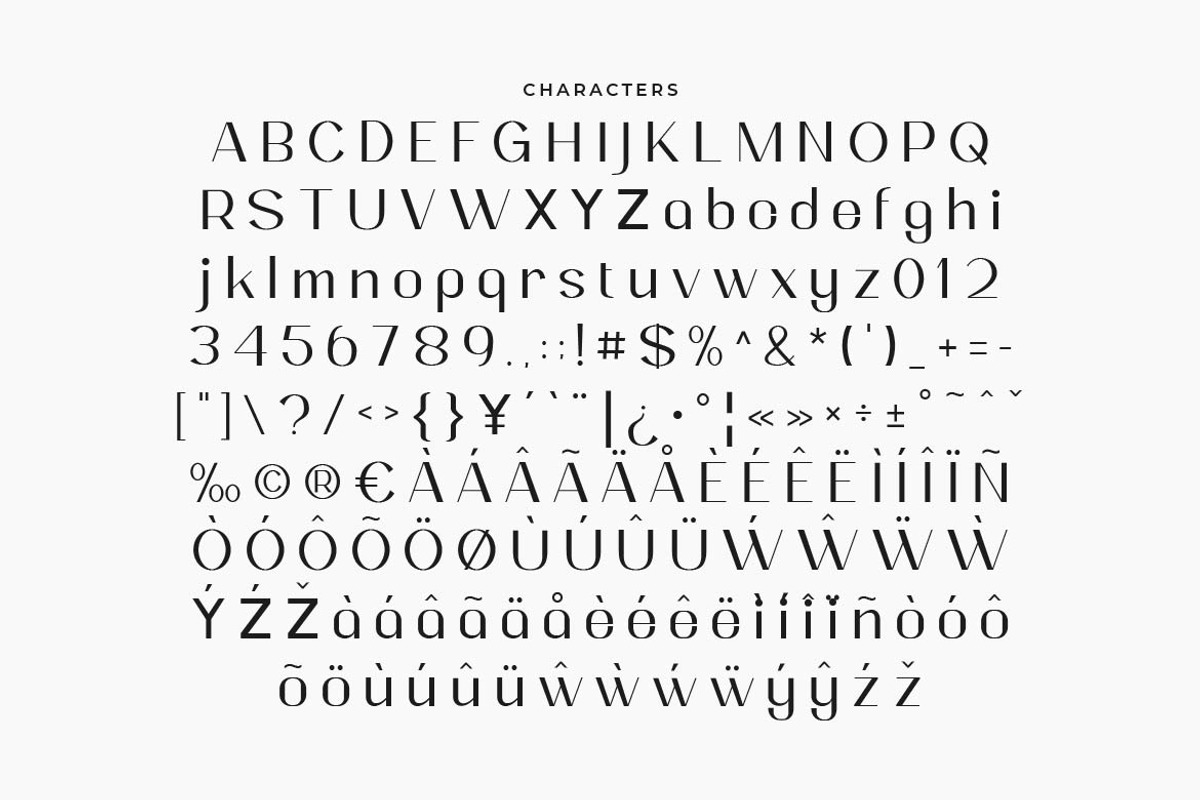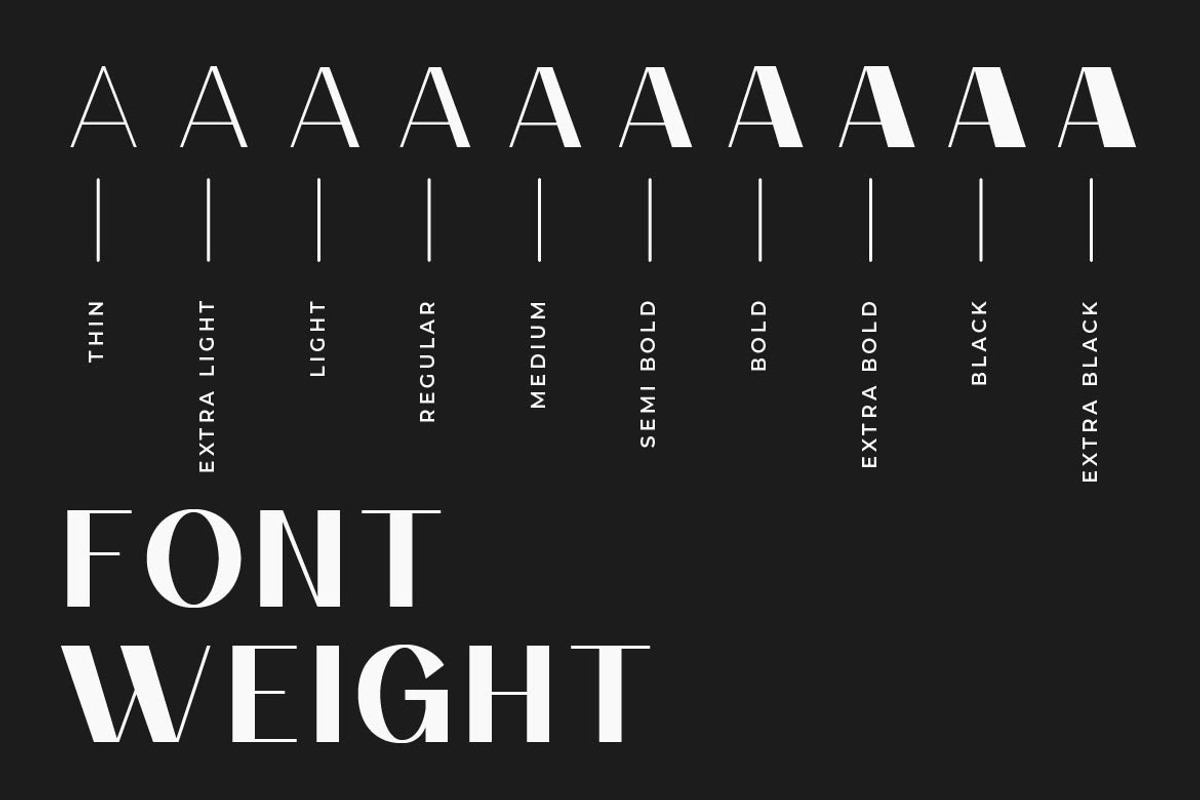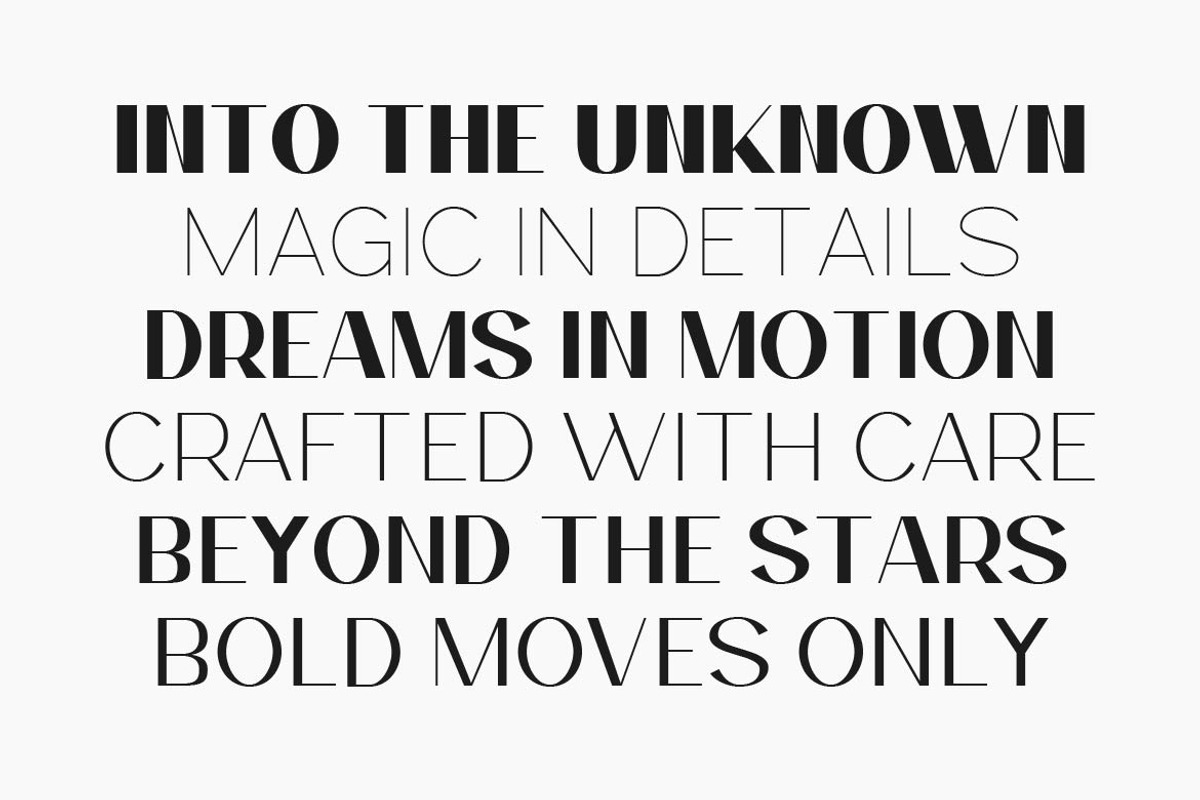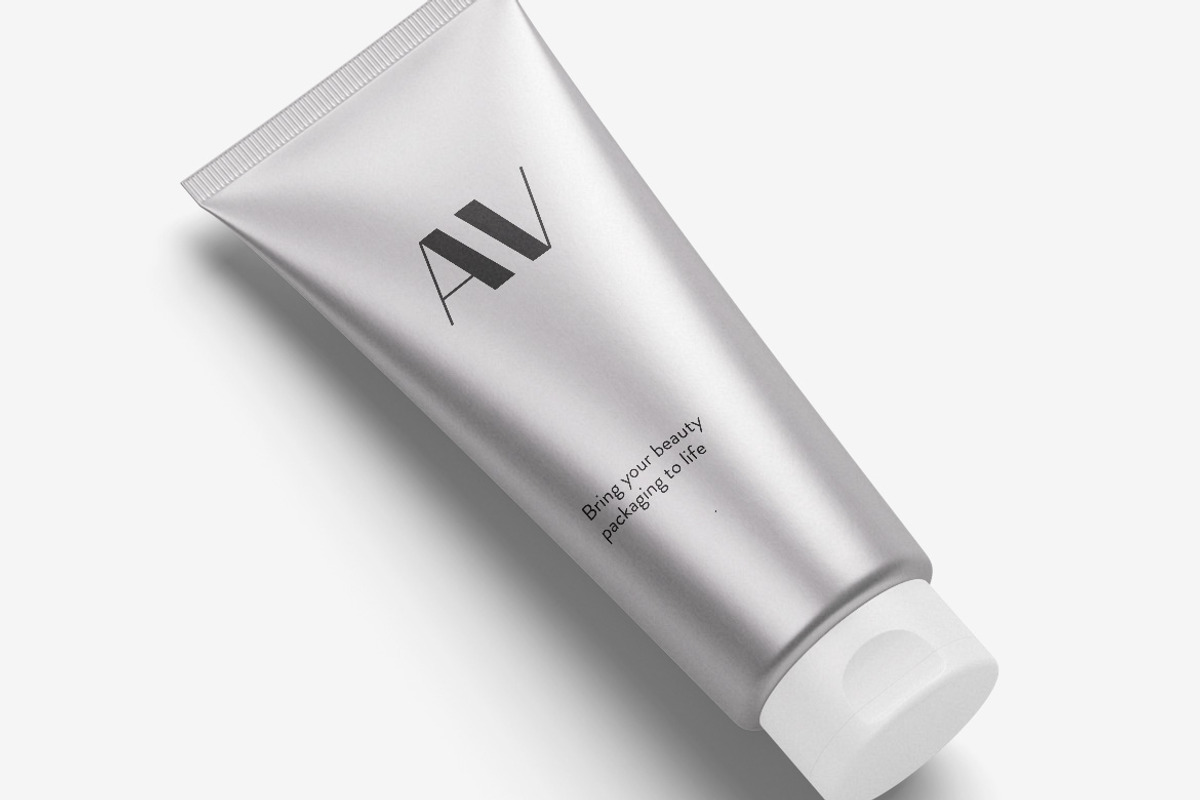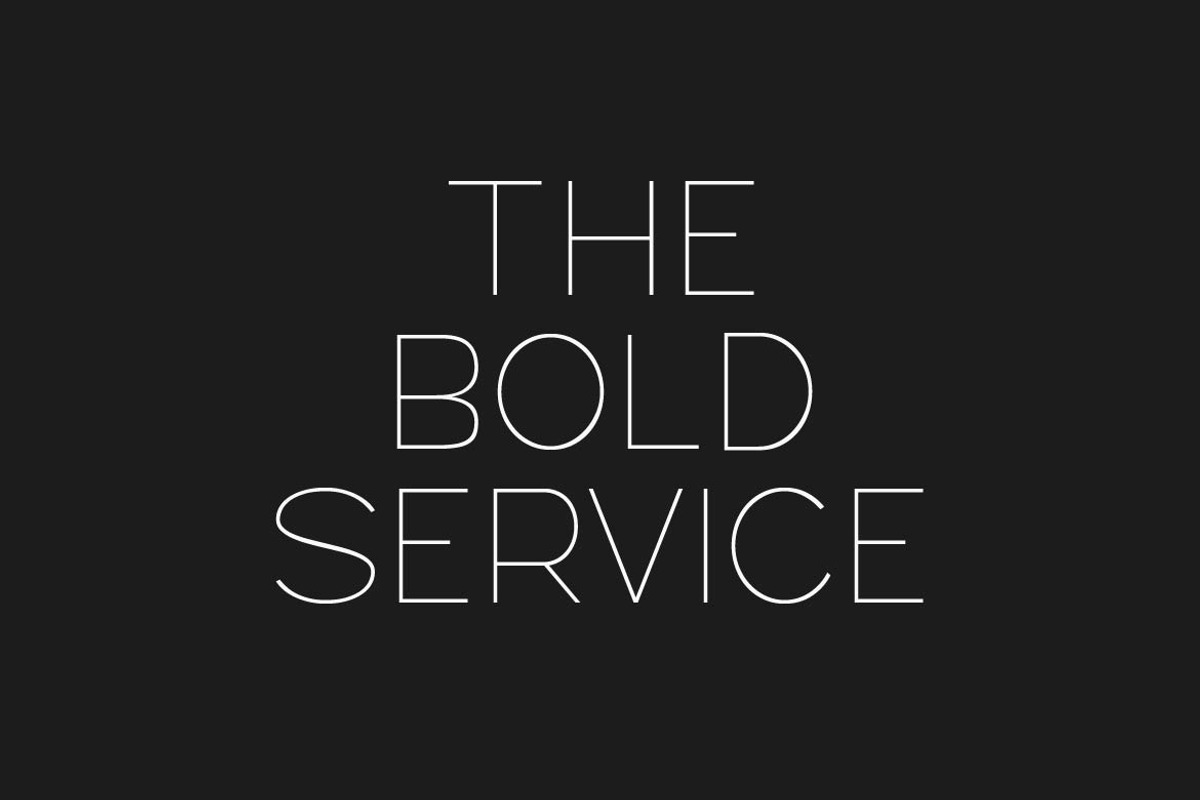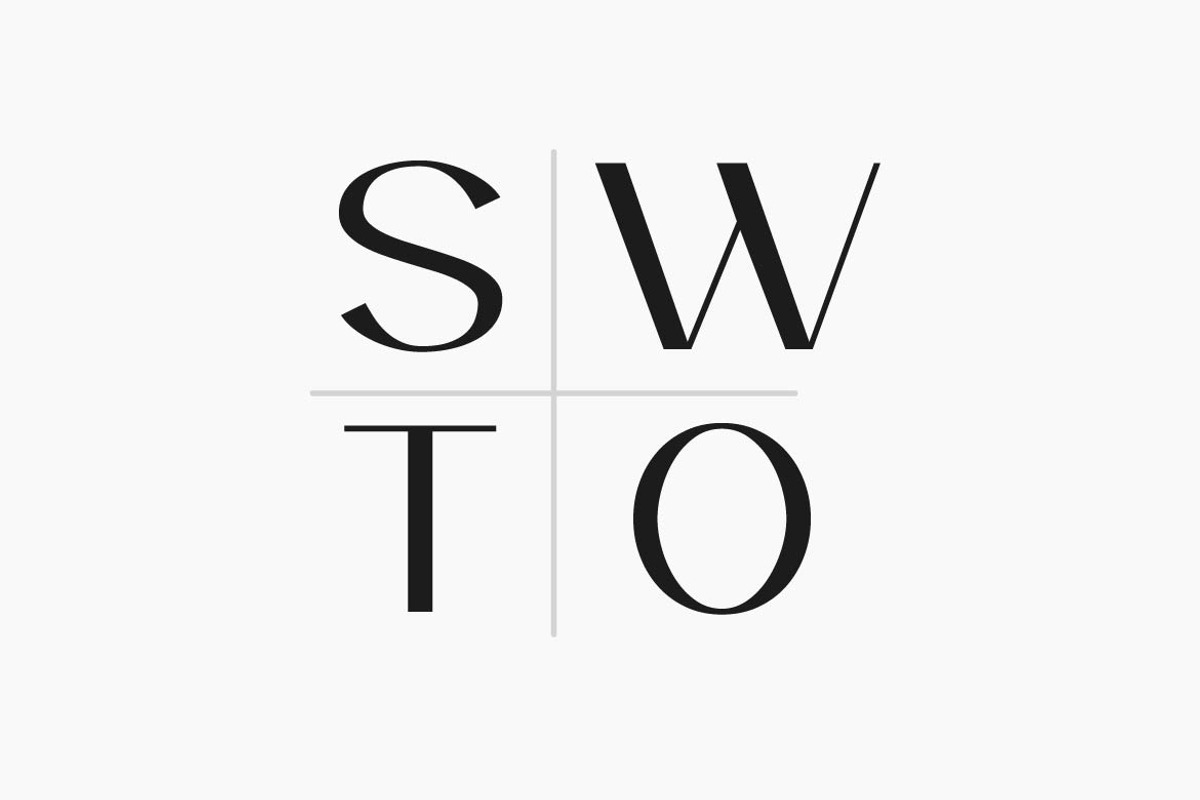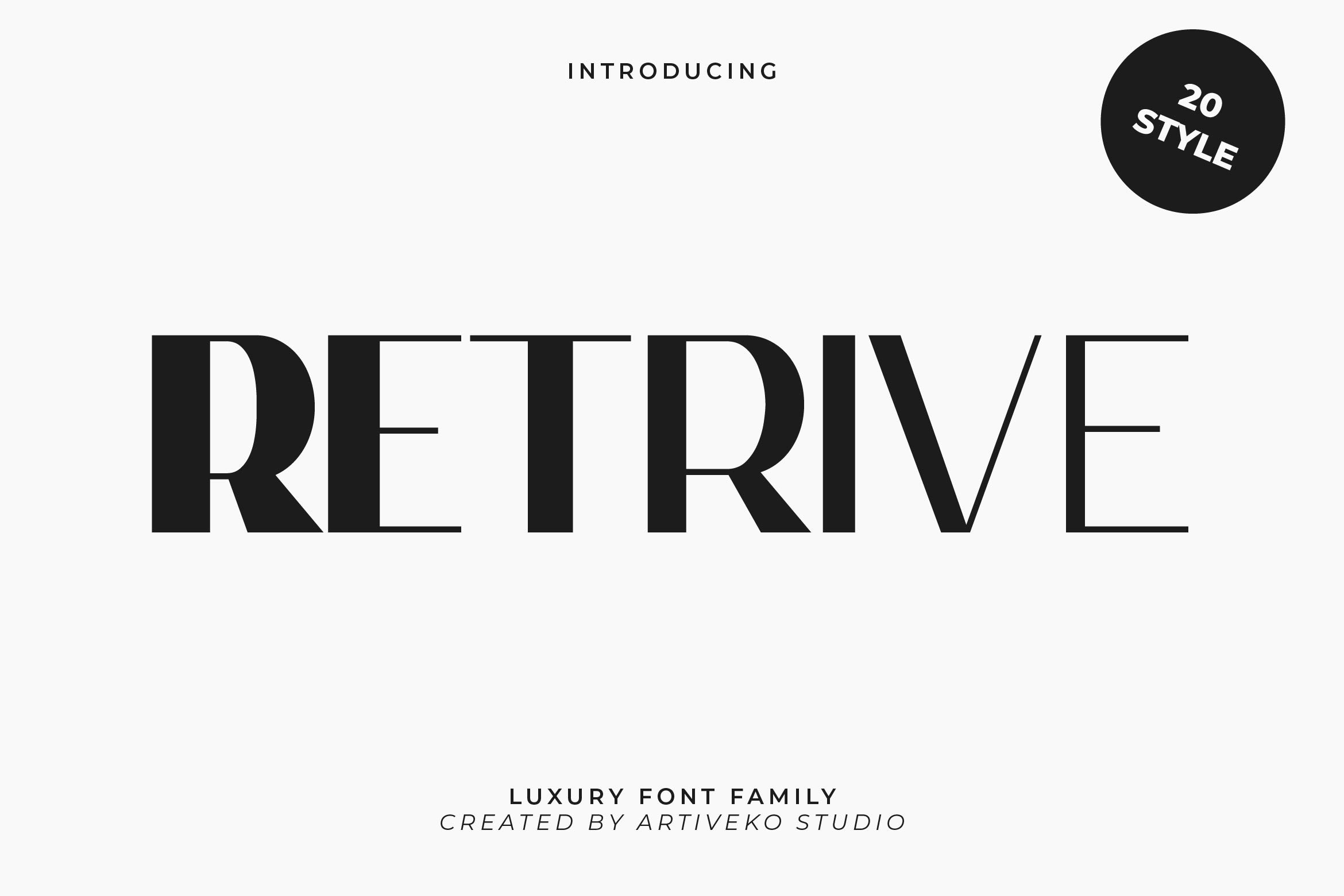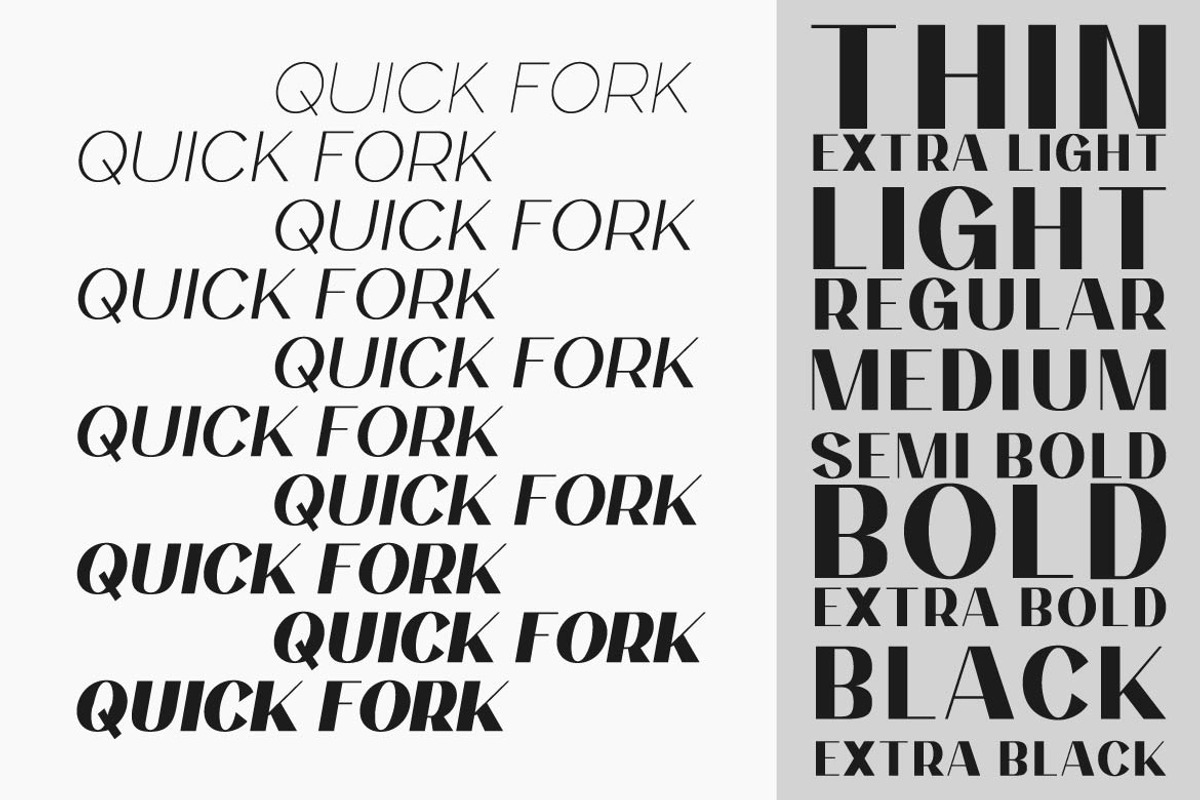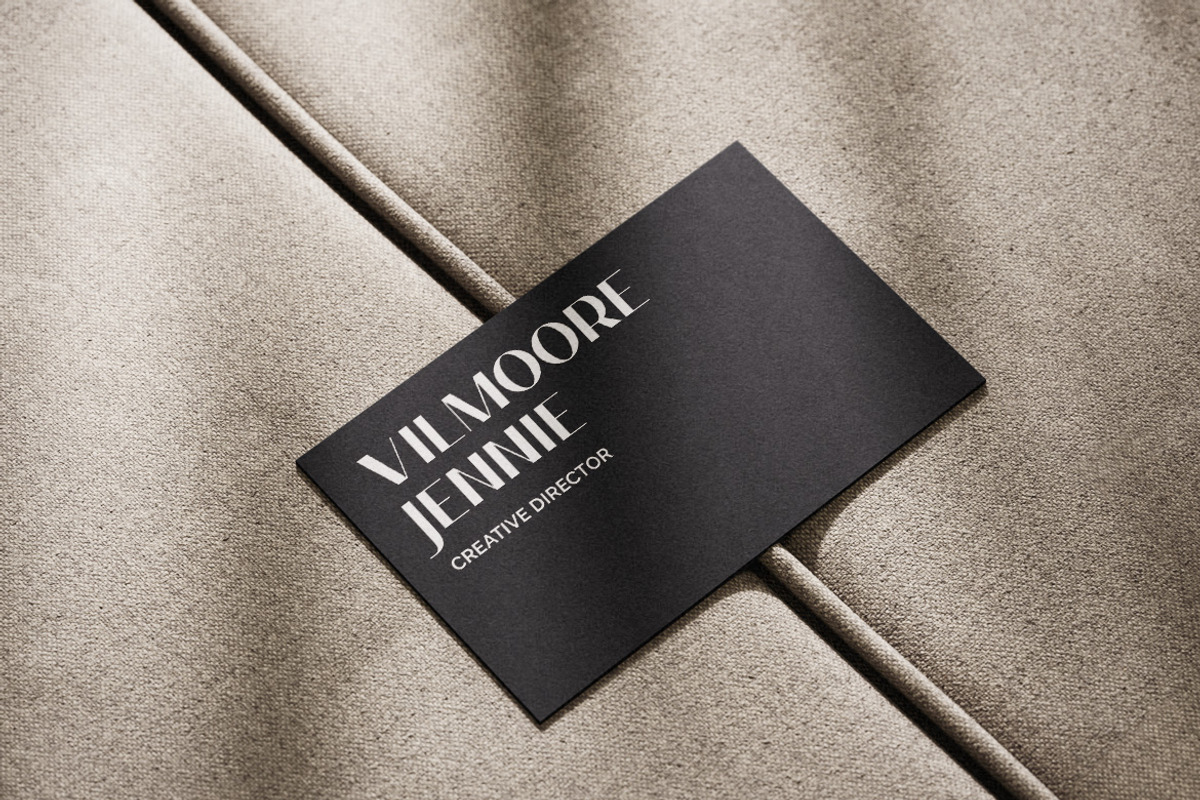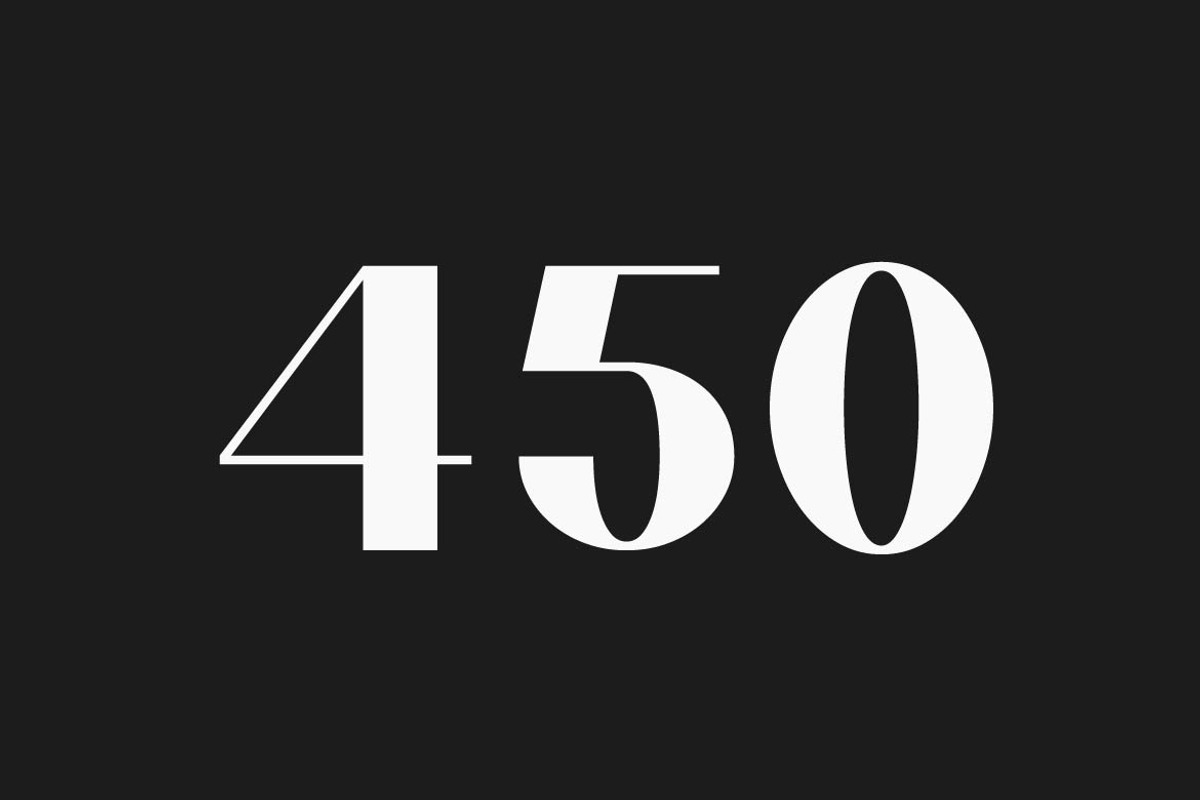
Retrive Font Family
Retrive is a modern and creative sans serif font family that blends functionality with distinct personality. Designed for versatility and clarity, Retrive offers a clean, structured appearance—perfect for branding, web design, editorial layouts, and everything in between. Whether you're working on a minimalist tech startup logo or a high-end fashion magazine spread, this font adapts effortlessly.